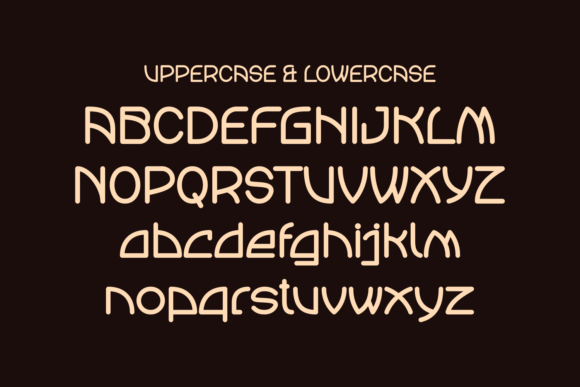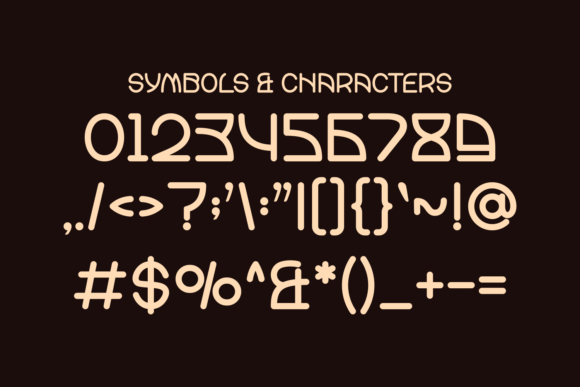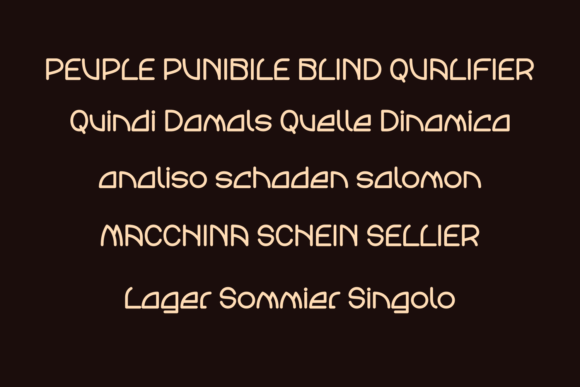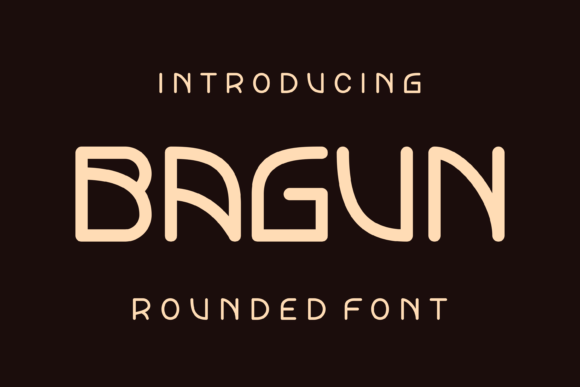
Introducing Bagun Font: The Perfect Choice for Print and Digital Designs
Are you tired of using the same old fonts for your designs? Look no further! Bagun Font is here to revolutionize your creative projects. This versatile font is perfectly suited for both print and screen, making it an ideal choice for a wide range of applications. From branding and name cards to posters, logos, magazines, and more, Bagun Font is the perfect addition to your design toolkit.
What Makes Bagun Font So Special?
Bagun Font boasts a unique and stylish design that is sure to capture the attention of your audience. Its clean lines and elegant curves make it perfect for creating visually stunning designs that are both modern and sophisticated. Whether you’re working on a logo, brochure, or website, Bagun Font is sure to elevate your design to the next level.
Key Features of Bagun Font
Bagun Font comes with a range of features that make it a versatile and practical choice for designers. Some of its key features include:
- Uppercase & Lowercase Letters: Bagun Font includes both uppercase and lowercase letters, giving you the flexibility to create a wide range of designs.
- Numbers: The font includes a set of numbers, making it perfect for creating designs that require numerical information.
- Punctuation: Bagun Font also includes a range of punctuation marks, ensuring that you have everything you need to create professional-looking designs.
Use Bagun Font for a Variety of Projects
Bagun Font is incredibly versatile and can be used for a wide range of projects, including:
- Branding: Create a consistent brand identity with Bagun Font, perfect for logos, business cards, and letterheads.
- Posters and Flyers: Grab attention with bold and eye-catching posters and flyers featuring Bagun Font.
- Magazines and Brochures: Add a touch of elegance to your publications with Bagun Font.
- T-Shirts and Merchandise: Create stylish and memorable designs for t-shirts, mugs, and other merchandise.
- Logos and Icons: Use Bagun Font to create unique and recognizable logos and icons.
- Headers and Banners: Add a professional touch to your website or social media graphics with Bagun Font.
Get Creative with Bagun Font
Whether you’re a professional designer or a crafty DIY enthusiast, Bagun Font is the perfect choice for your next project. Its versatility and style make it an excellent addition to any design toolkit.